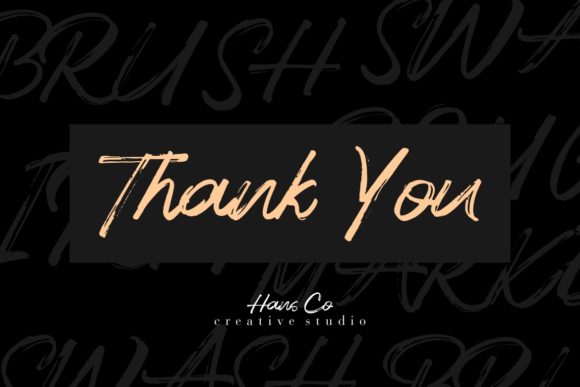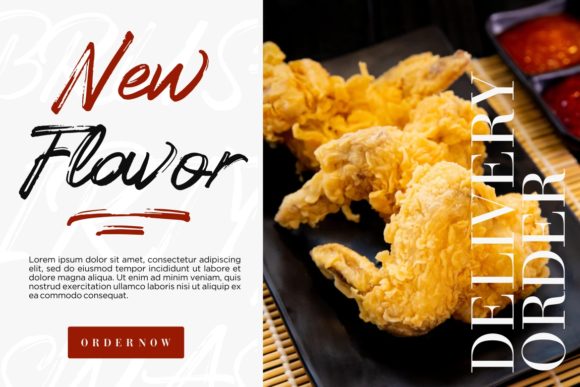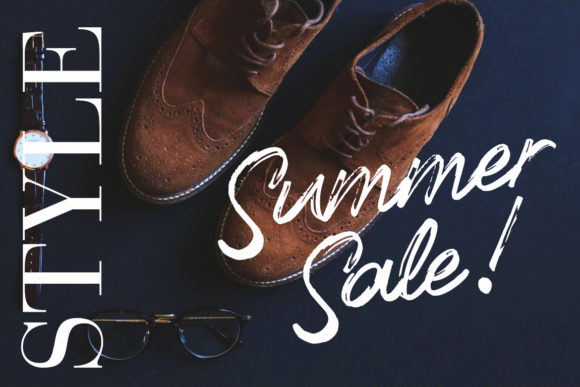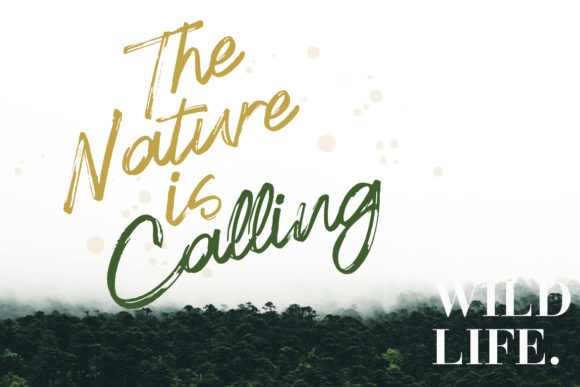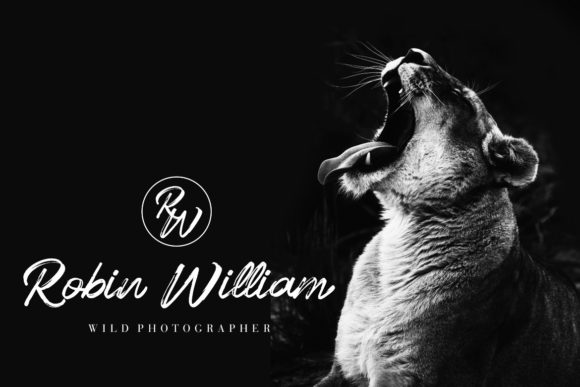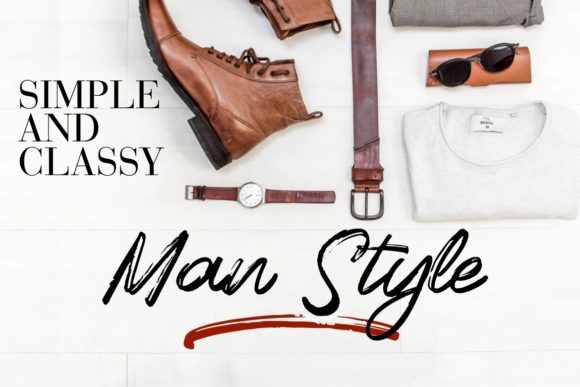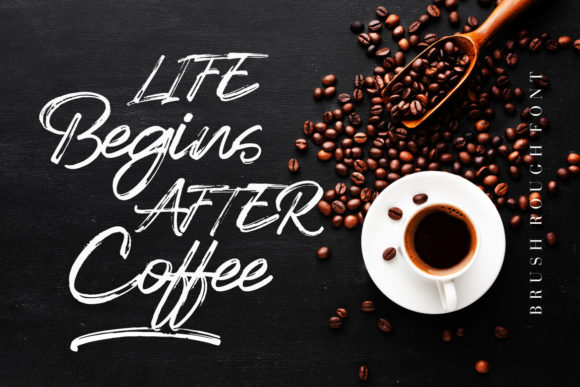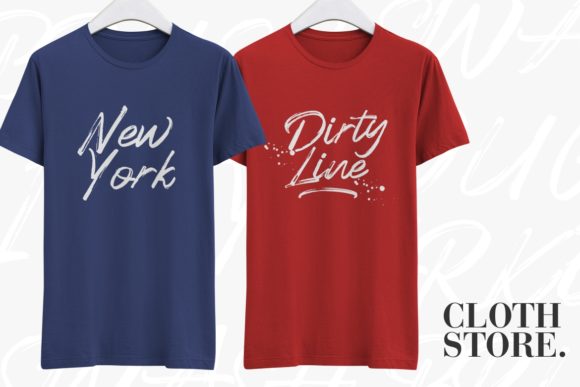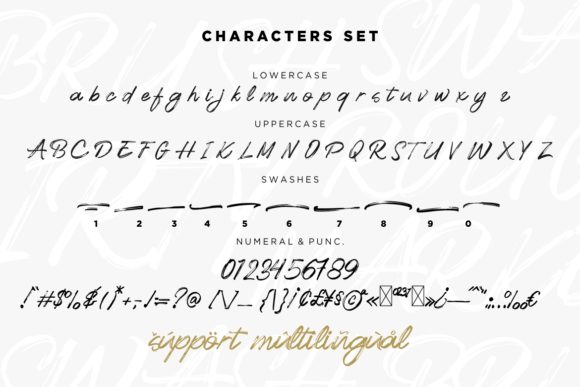
Crunchy Font
About Crunchy Font
Crunchy is a cool brush script font. It’s perfect for creating logos, product branding, posters, social media posts and much more! Ignite your creativity with this fun font.